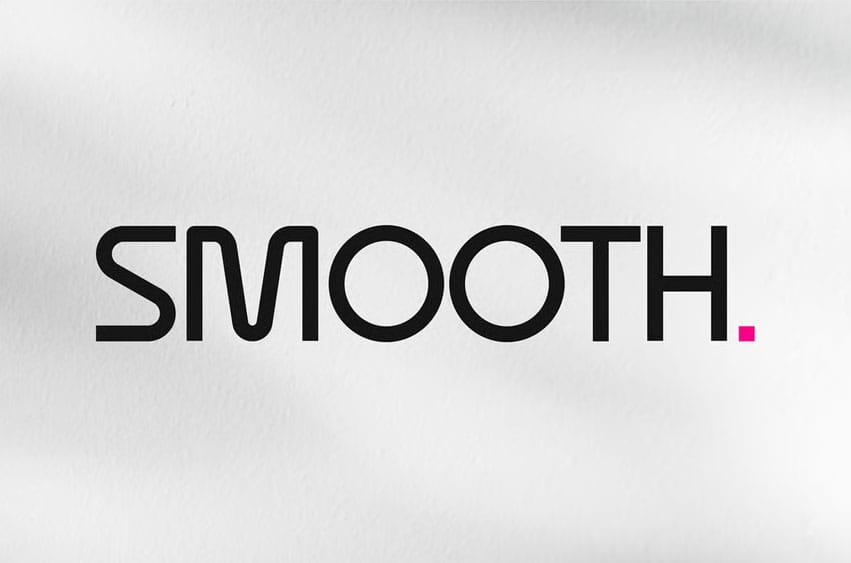
Smooth Font is a modern display typeface crafted for designers seeking a long-tail balance of future-ready aesthetics, bold headline clarity, and gentle geometric curves. Its vibe feels sleek, confident, and contemporary, echoing the visual language used in tech exhibitions, AI brands, and editorial product showcases. With its smooth terminals, consistent proportions, and low-contrast structure, SMOOTH stands out as a powerful choice for branding, digital interfaces, advertising layouts, and product-forward campaigns.
The font carries a refined yet expressive personality, making it a natural fit for markets that value strong readability with a futuristic edge—such as innovation startups, design agencies, fashion tech, modern retail, architecture studios, and editorial posters.
SMOOTH delivers high-impact visuals for creators who want typography that instantly elevates a brand’s messaging. Its clean geometry enhances tech posters, UI dashboards, app interfaces, corporate design systems, product showcases, and modern editorial layouts. Because of its rounded flow and precise spacing, SMOOTH also supports emotional goals like creating trust, innovation, clarity, and forward-thinking appeal—perfect for founders, designers, and creative teams who want their audience to feel guided into the future.
Key Features : Bold Benefits
- Enhances headline hierarchy with clear, confident shapes
- Strengthens brand identity across digital and print touchpoints
- Delivers consistent readability for tech-driven or design-focused markets
Structural Traits
- Rounded terminals and geometric form for modern clarity
- Low-contrast lines that create smooth, balanced flow
- Stable proportions that support a polished, professional look
Design Solutions
- Eliminates visual clutter in branding systems
- Creates stronger impact in product and editorial layouts
- Supports future-centric aesthetics without sacrificing legibility